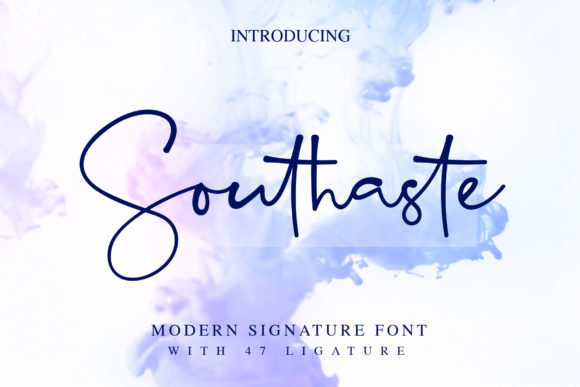
Welcome to the world of Southaste Font, a script font family that embodies elegance and charm. Step into a realm where creativity flourishes and words dance with an effortless grace. Southaste Font is the perfect companion for your creative pursuits, whether you're a passionate designer, a dedicated blogger, or simply someone who appreciates the beauty of typography.
With its simple yet modern style, Southaste Font effortlessly elevates your designs, adding a touch of sophistication to your projects. This handwritten signature script seamlessly blends the beauty of calligraphy with the functionality of a digital font. Its flowing lines and delicate curves lend an air of authenticity and personal touch to your creations.
Explore the endless possibilities of Southaste Font and unleash your imagination. Craft stunning watermarks that leave a lasting impression, add a touch of elegance to your signatures, or create captivating albums that tell your story with style. Let Southaste Font be your muse as you design quotes that resonate with your audience and leave them inspired.
Southaste Font is meticulously crafted to ensure flawless performance across a wide range of applications. Its versatility knows no bounds, making it the ideal choice for a variety of projects. Whether you're working on a personal blog, designing promotional materials, or creating social media graphics, Southaste Font is your trusted companion, ready to elevate your designs to new heights.
Join the countless creatives who have embraced the beauty of Southaste Font. Let your words dance with an enchanting rhythm, and let your designs captivate and inspire. Experience the magic of Southaste Font today and embark on a creative journey that knows no limits.